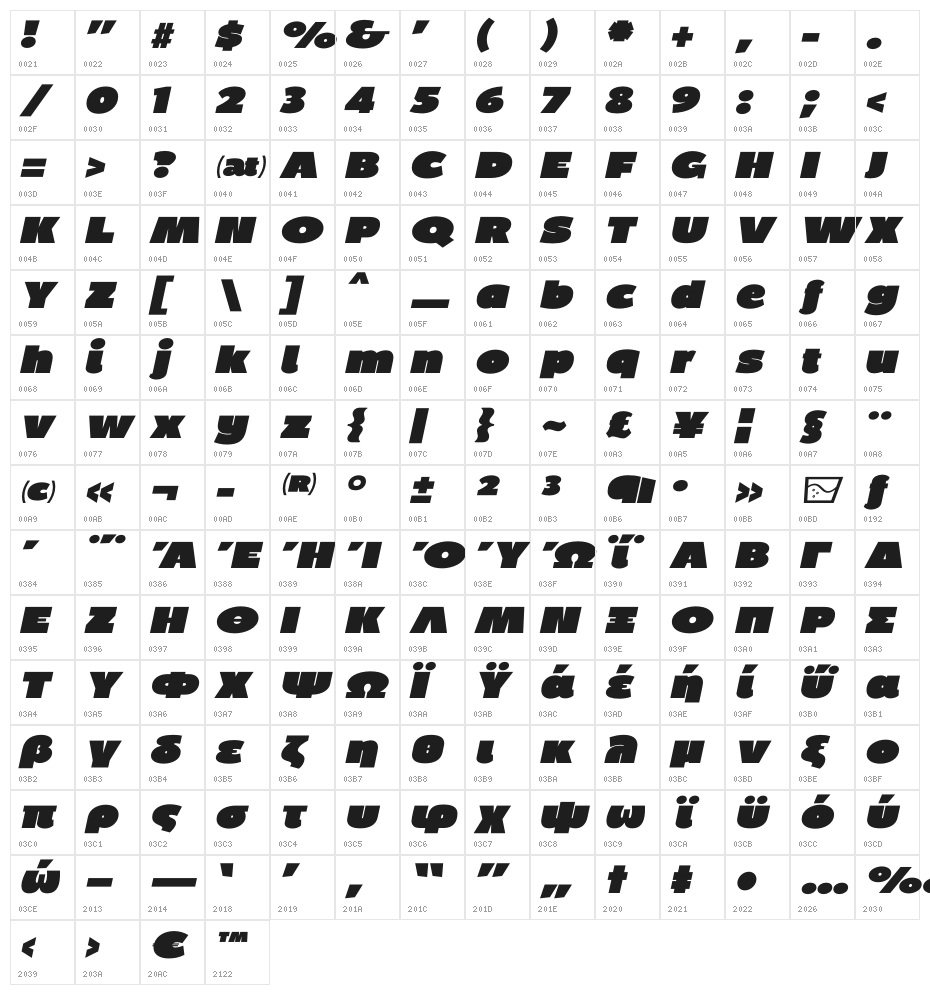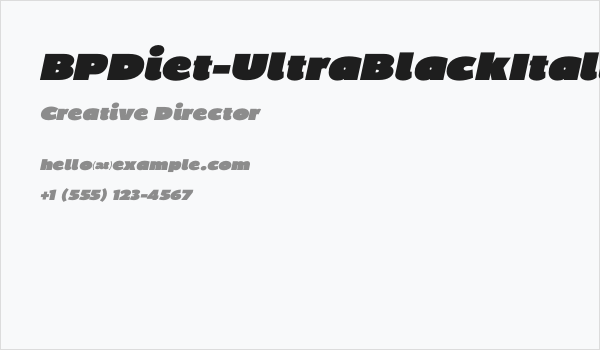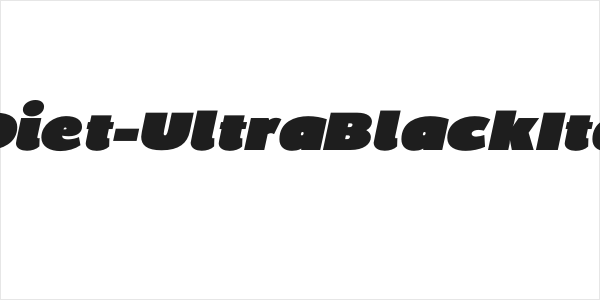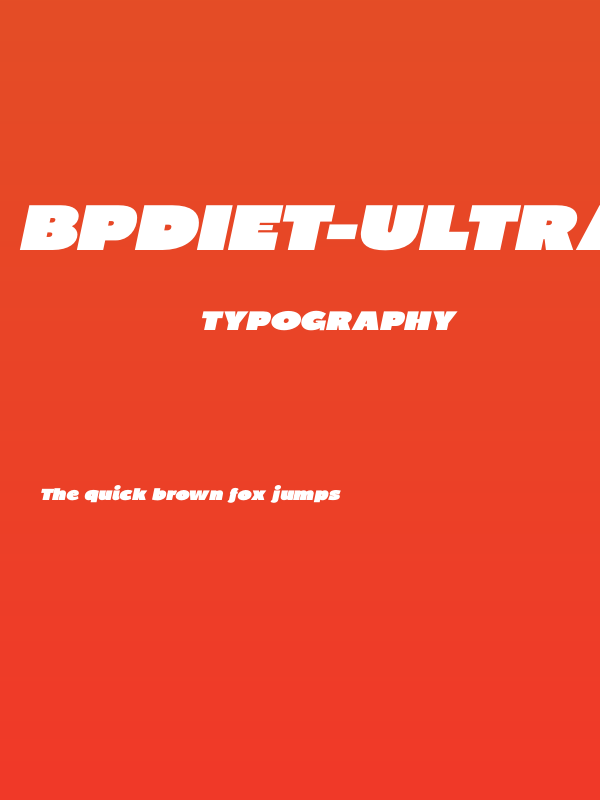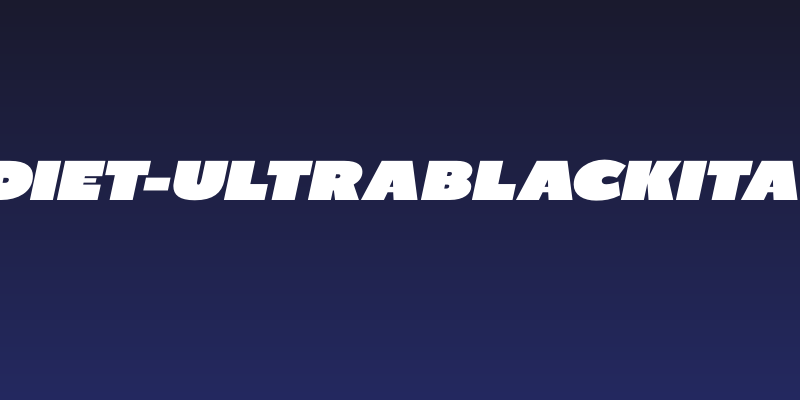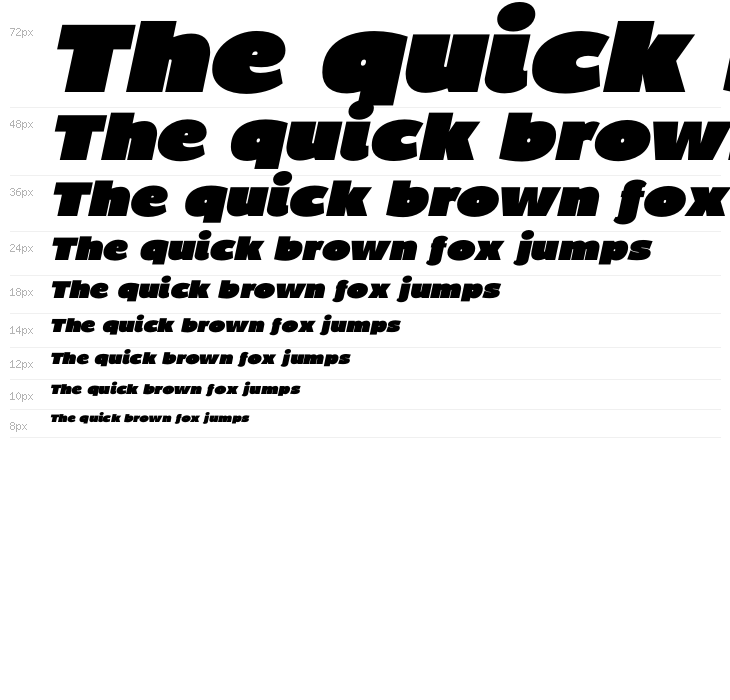
BPDiet-UltraBlackItalic Font
BPDiet-UltraBlackItalic Description
This font is characterized by its ultra-bold and italicized style, making it a striking choice for impactful designs. The letters are heavily weighted, with a strong emphasis on horizontal strokes, giving it a robust and powerful appearance. The italic slant adds a dynamic and forward-moving feel, enhancing its modern and energetic vibe. The characters are tightly spaced, contributing to its compact and cohesive look. This font is ideal for projects that require a bold statement, such as headlines, posters, and branding materials. Its high contrast in stroke thickness ensures excellent readability even at larger sizes.
| Proposed Projects | Ideal for headlines, posters, branding, and any design requiring a bold statement. |